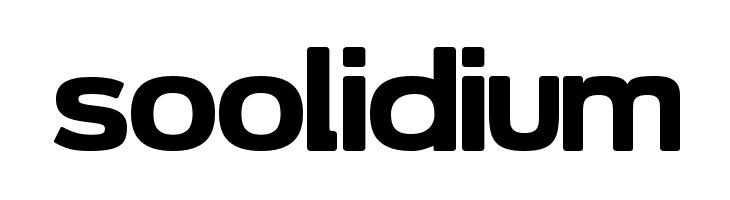
A playful, casual handwritten font with smooth, rounded lines.
A playful, handwritten font with smooth, flowing lines and a whimsical style.
A classic serif font with elegant lines and a traditional, sophisticated appearance.
A bold, geometric font with rounded strokes and a modern aesthetic.
A bold, rounded font with a modern, geometric style.
A bold, distressed font with a rugged, grunge aesthetic.
A geometric font with circular and linear elements, offering a modern and structured look.
A bold, modern font with thick strokes and a slightly condensed style.
A festive decorative font with characters inside Christmas ornament shapes.
A bold, slanted font with tight spacing and a modern, energetic style.
A lively handwritten font with expressive, fluid strokes and playful elegance.
A bold, angular font with a modern, geometric style.
A playful, bold font with rounded, thick strokes and a whimsical style.
A classic serif font with elegant serifs and medium contrast, suitable for traditional and modern applications.
A playful, bold, and rounded handwritten font.
A bold, modern sans-serif font with strong geometric shapes.
A bold, playful font with rounded letterforms and a cohesive design.
A playful, handwritten font with a whimsical and casual style.
A bold, italicized font with a strong, modern presence.
A bold, rounded, and condensed font with a modern, futuristic style.
A pixelated, monospaced font with a retro video game aesthetic.
A futuristic, geometric font with bold, angular letterforms.